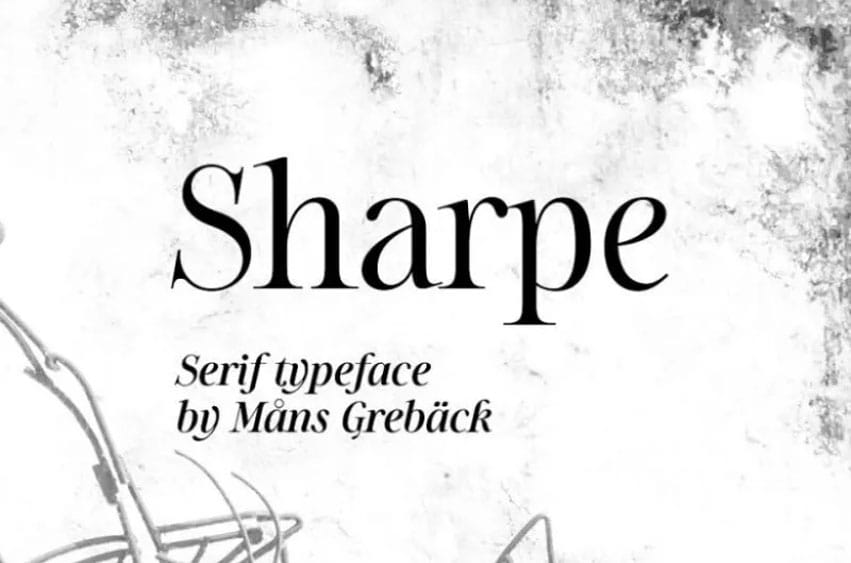
Sharpe Font is an elegant typeface and comes in a range of styles and weights. The type has been designed by Mans Greback in 2018 and 2019. It has a bold, clear and lively letterforms yet with a conservative underlying structure. All five font weights are nicely balanced one with another, one weight also has an italic equivalent of itself, resulting in ten styles from Thin to Black. Every style has numerals, symbols, punctuation, ligatures, and support for many languages.